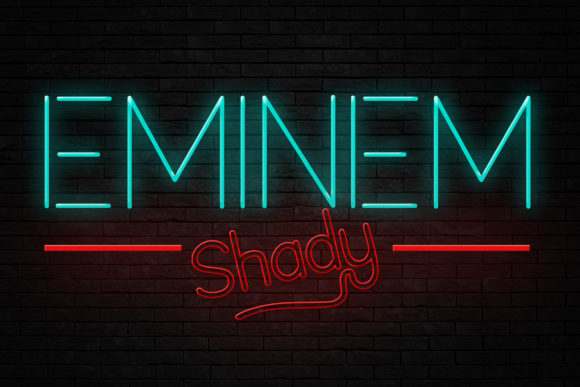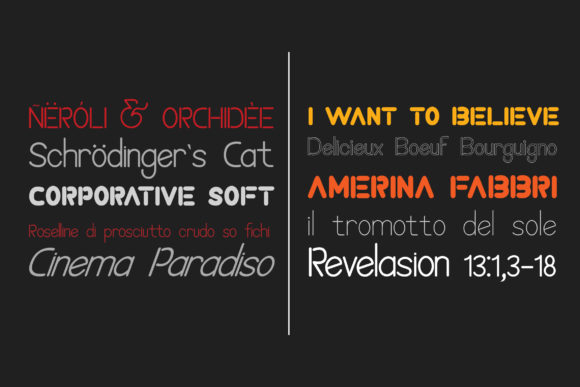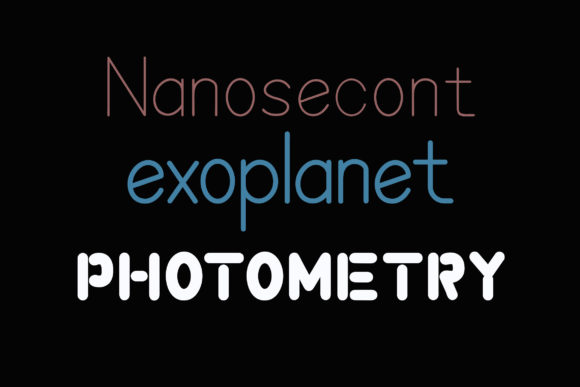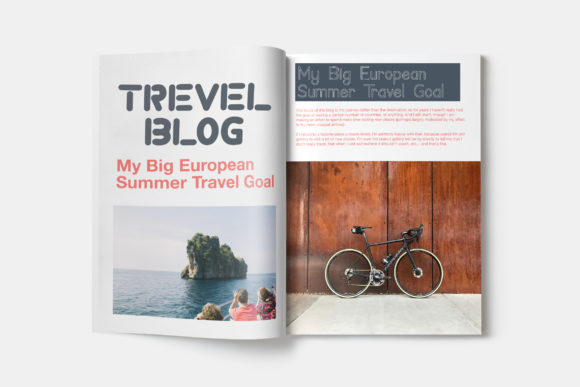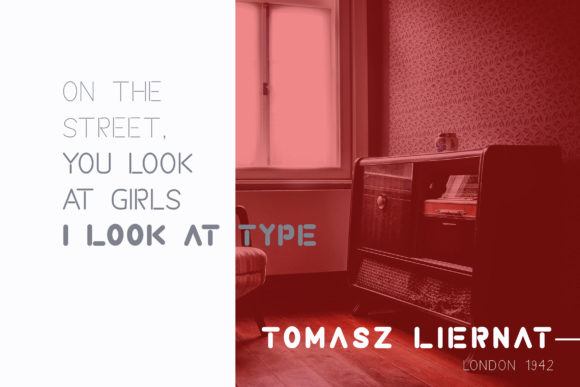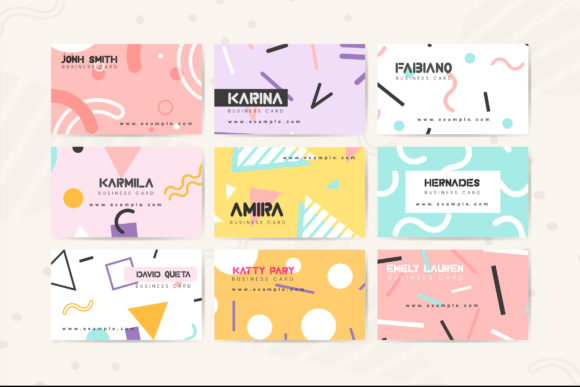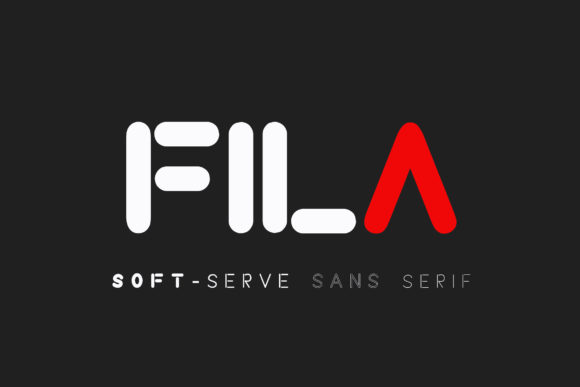
Fila Font: The Modern Sans Serif with a Unique Charm
In the world of typography, fonts play a crucial role in making or breaking a design. A well-chosen font can elevate a design from ordinary to extraordinary. For designers and crafters looking for a bold twist in their design ideas, Fila Font is an excellent choice. In this article, we’ll explore the features and benefits of Fila Font, and why it’s becoming a popular choice among designers.
What is Fila Font?
Fila Font is a minimal and modern sans serif font that exudes a unique charm. Its clean lines, simple shapes, and bold strokes make it an ideal choice for designers looking for a font that can add a touch of sophistication to their designs. Fila Font is perfect for a wide range of design projects, from branding and advertising to packaging and digital media.
Key Features of Fila Font
- Minimal and Modern Design: Fila Font boasts a minimalist design that is both modern and sleek. Its simple shapes and clean lines make it easy to read and versatile for various design applications.
- Unique Charm: Fila Font has a unique charm that sets it apart from other sans serif fonts. Its bold strokes and carefully crafted letterforms give it a distinctive personality.
- Bold Twist: Fila Font is perfect for designers looking to add a bold twist to their designs. Its bold strokes and modern design make it an excellent choice for headlines, titles, and other design elements that require a strong visual impact.
- Highly Versatile: Fila Font is highly versatile and can be used for a wide range of design projects, from print to digital media.
Benefits of Using Fila Font
So, why should designers and crafters choose Fila Font for their design projects? Here are some benefits of using Fila Font:
- Enhances Readability: Fila Font is designed to be easy to read, making it perfect for body text, headlines, and titles.
- Adds Visual Interest: Fila Font’s unique charm and bold strokes add visual interest to designs, making them more engaging and attention-grabbing.
- Perfect for Branding: Fila Font is an excellent choice for branding projects, as it can help create a strong and memorable visual identity.
How to Use Fila Font in Your Design Projects
Using Fila Font in your design projects is easy. Here are some tips to get you started:
- Pair it with Other Fonts: Fila Font can be paired with other fonts to create a unique and visually appealing typography combination.
- Experiment with Different Sizes and Colors: Fila Font can be used in various sizes and colors to create visual interest and hierarchy in your designs.
- Use it for Headlines and Titles: Fila Font is perfect for headlines and titles, as its bold strokes and modern design make it easy to read and attention-grabbing.
In conclusion, Fila Font is a modern sans serif font with a unique charm that can add a bold twist to any design project. Its minimal and modern design, highly versatile, and easy to read make it an excellent choice for designers and crafters. Whether you’re working on a branding project, creating a digital product, or designing a print material, Fila Font is definitely worth considering.